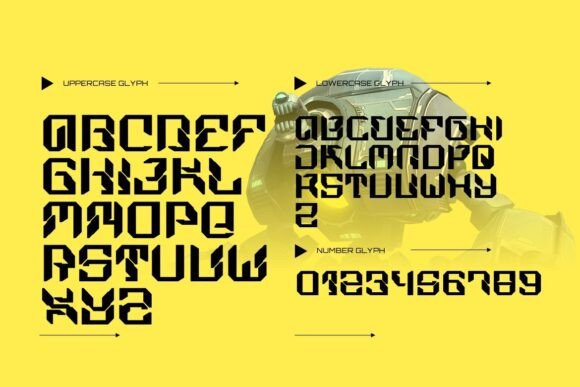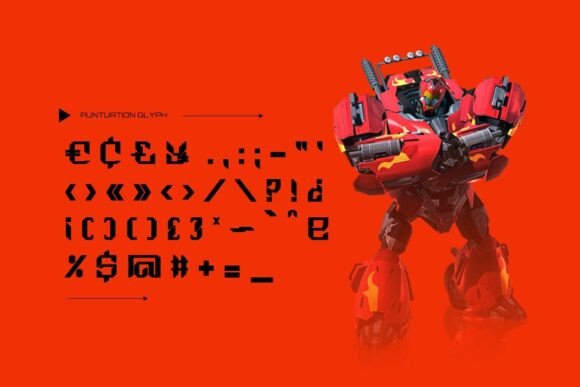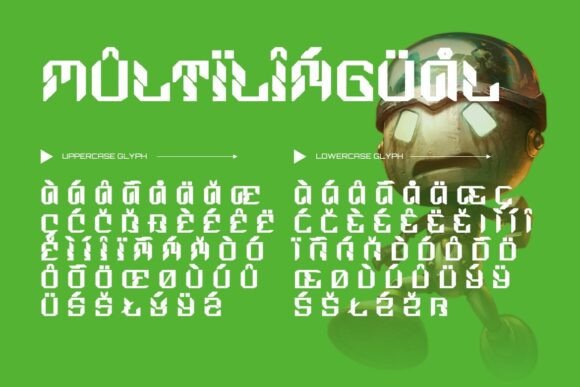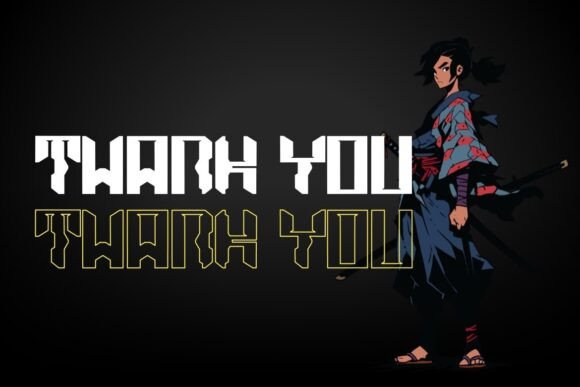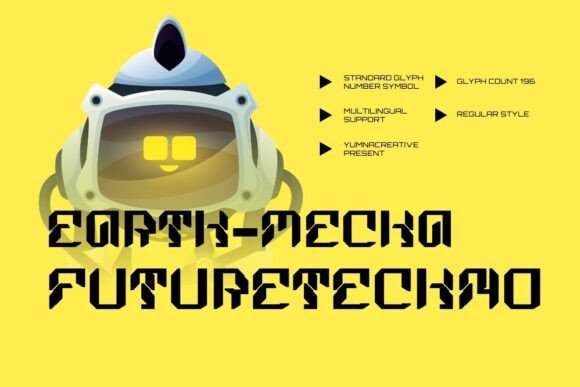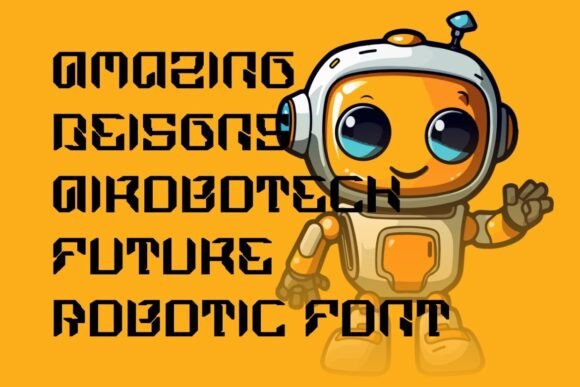
Introduction to Mechadroid Font
Mechadroid – Future Techno is a cool mix of robots and futuristic technology.
It’s all about advanced machines, sleek designs, and a high-tech vibe Imagine a world with smart robots, glowing neon lights, and cutting-edge gadgets that feel straight out of the future.
Key Features of Mechadroid Font